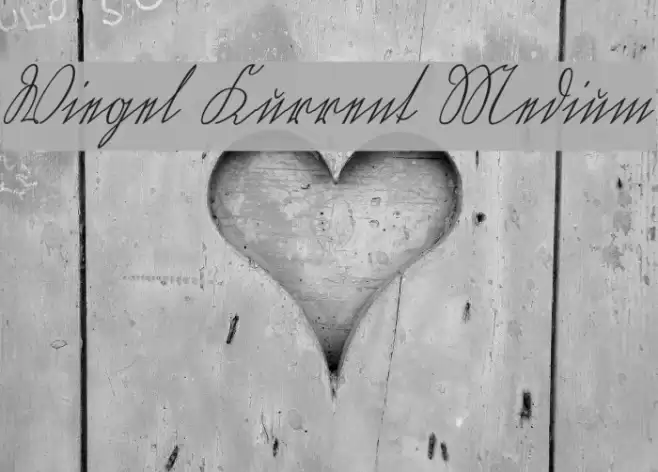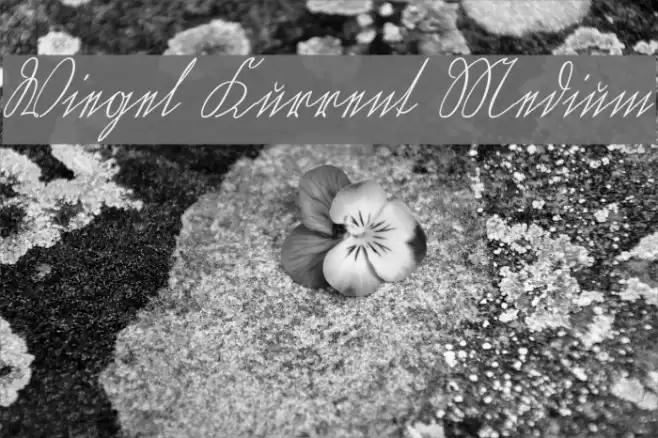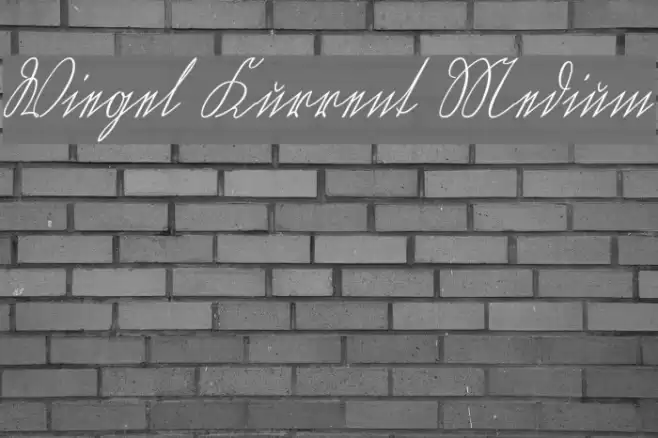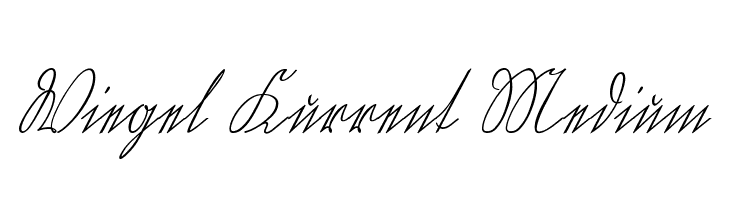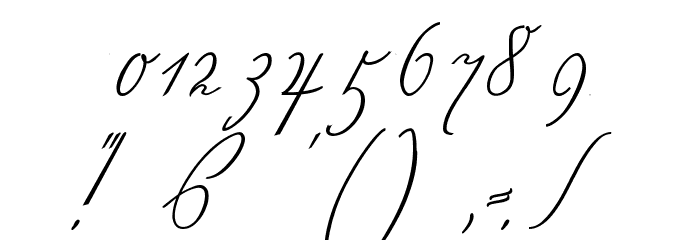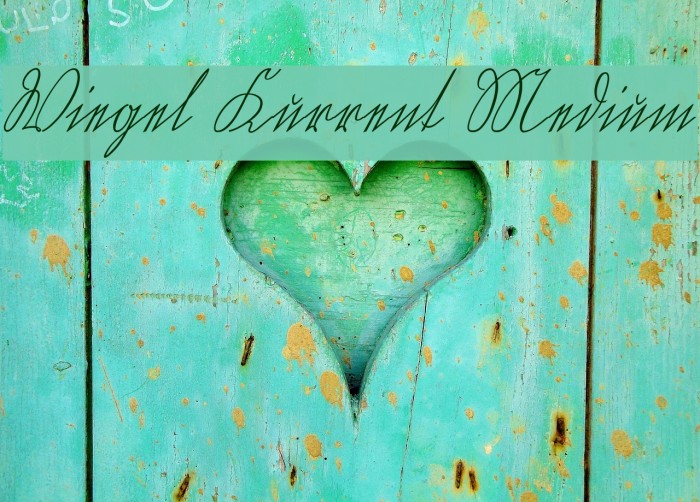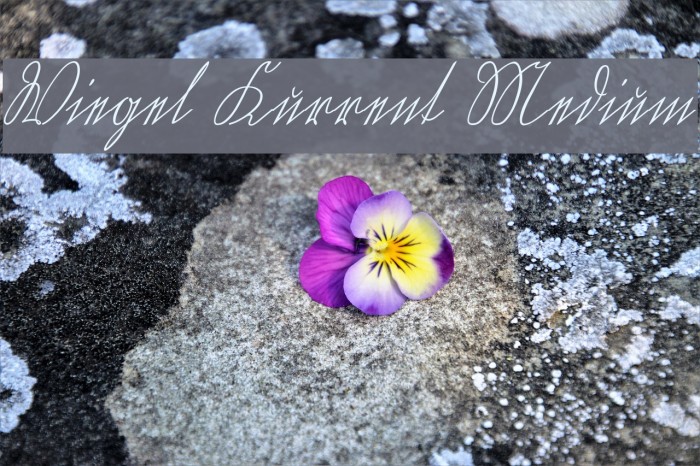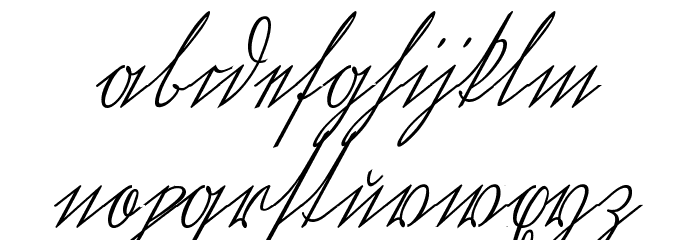
Wiegel Kurrent Medium Font
Wiegel Kurrent Medium Description
This font is a classic example of traditional German script, characterized by its flowing, cursive style. The letters are intricately connected, with elegant loops and flourishes that give it a sophisticated and historical appearance. The uppercase letters are particularly ornate, featuring exaggerated curves and swashes, while the lowercase letters maintain a consistent fluidity. The numerals and special characters are designed to match the overall aesthetic, with a graceful and artistic touch. This script is reminiscent of old manuscripts and calligraphy, offering a sense of nostalgia and elegance.
A traditional German cursive script with elegant loops and historical charm from Handwritten fonts.
- Proposed Projects: Ideal for historical documents, wedding invitations, certificates, and any project requiring a touch of vintage elegance.
- Character Spacing: Tight
- Overall Style: Vintage
- Use Case: Logos, Invitations, Certificates